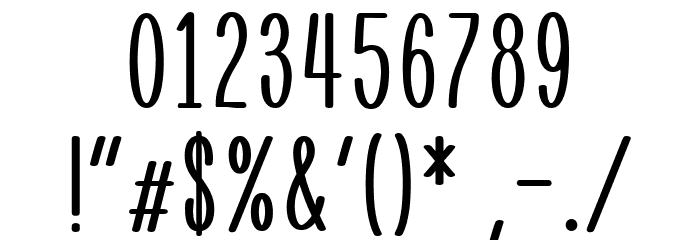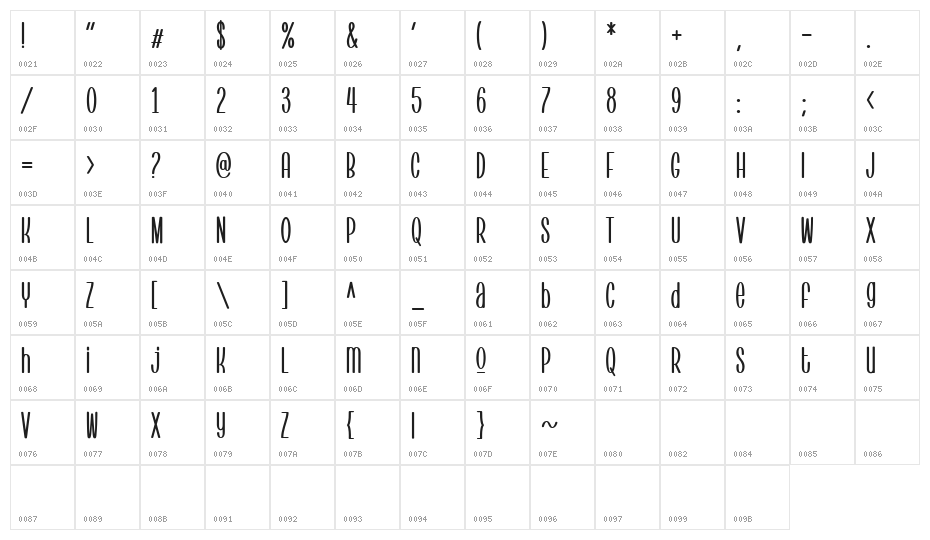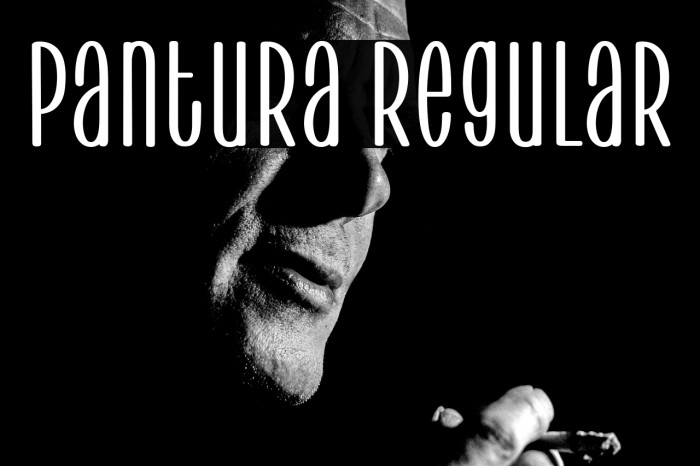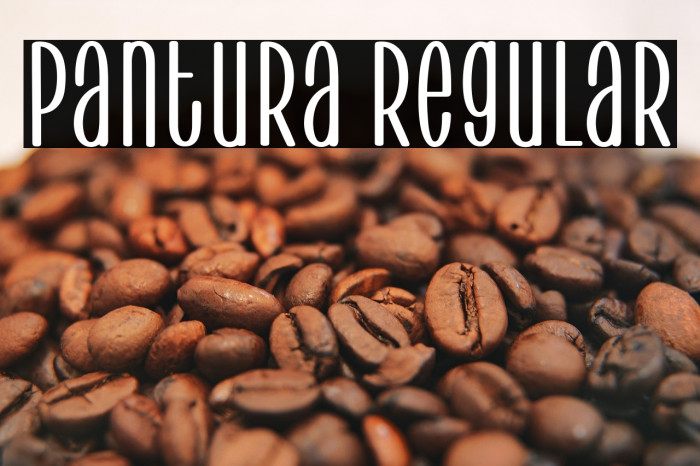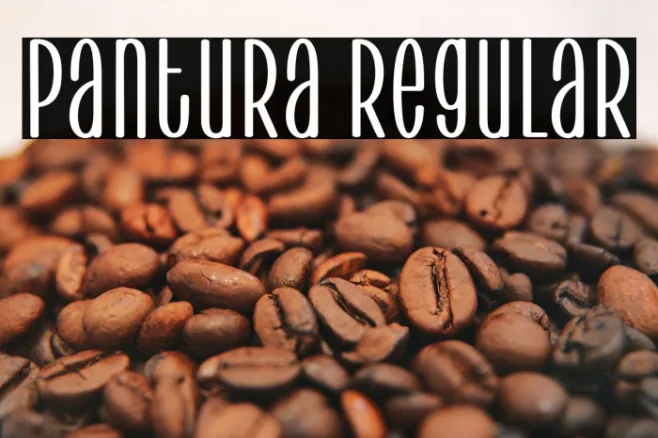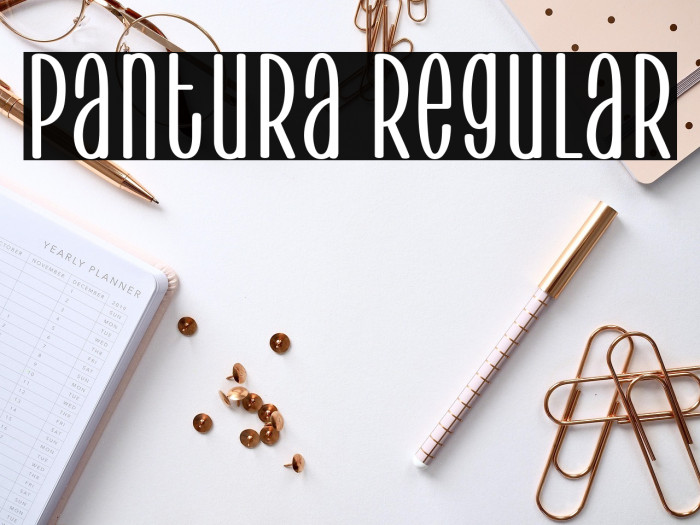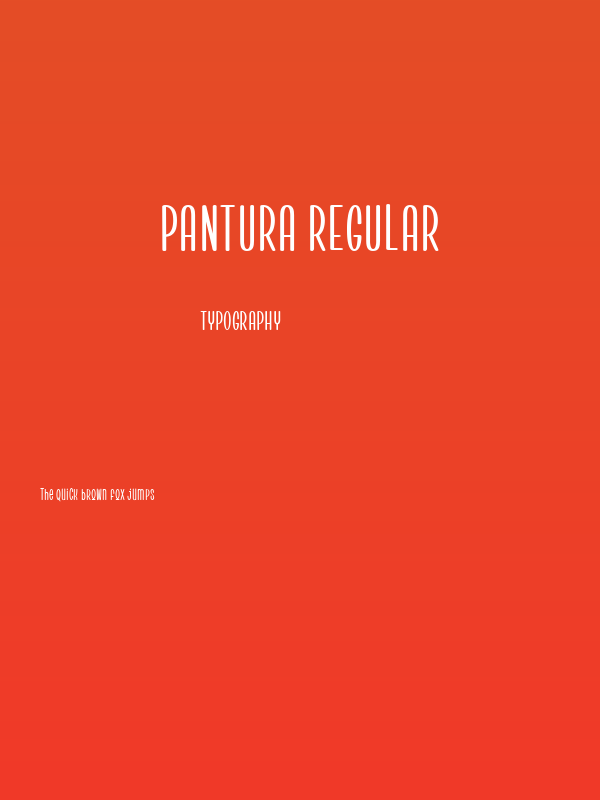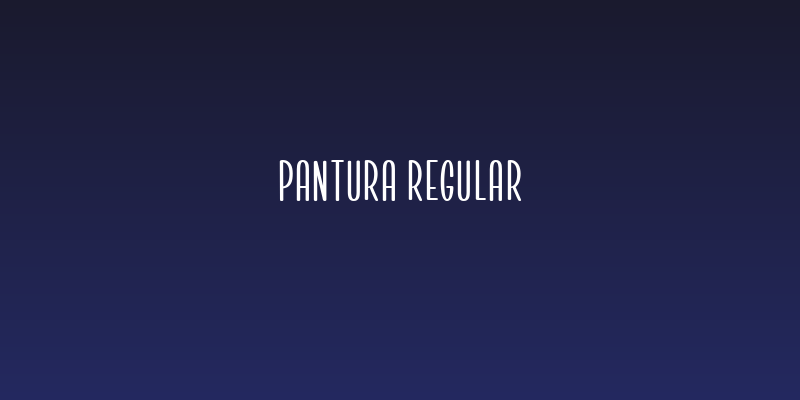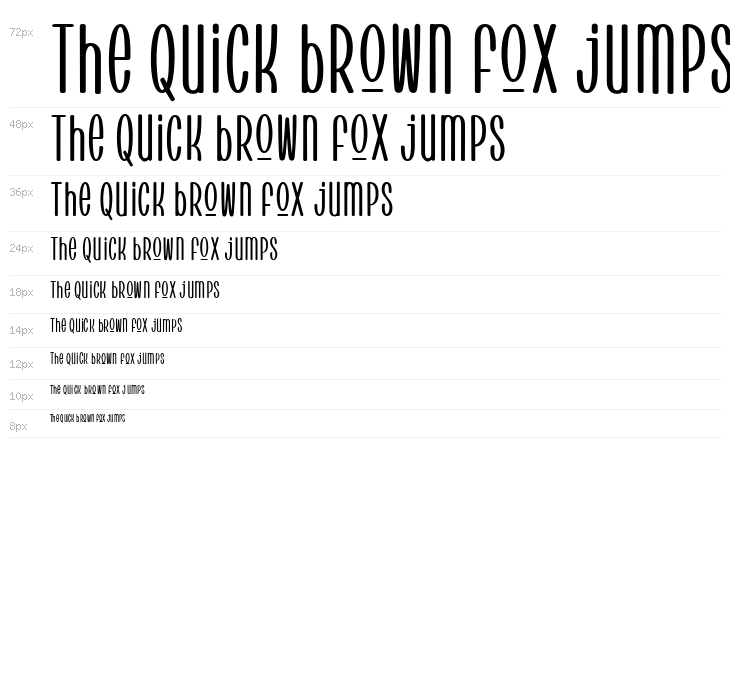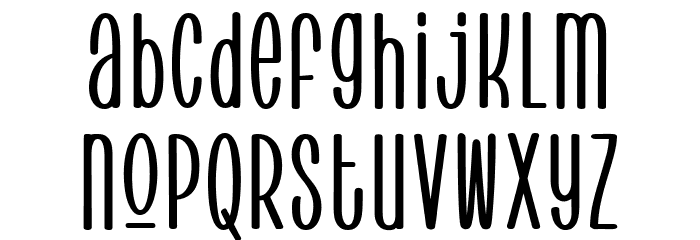
Pantura Regular Font
Pantura Regular Description
This font features a playful and rounded design, characterized by its tall, narrow letters with smooth curves and a consistent stroke width. The uppercase and lowercase letters maintain a uniform style, creating a cohesive look. The numbers and special characters are designed to match the overall aesthetic, making it suitable for a variety of uses. Its clean lines and modern appearance make it versatile for both digital and print media. The font's unique style is eye-catching and can add a touch of personality to any project.